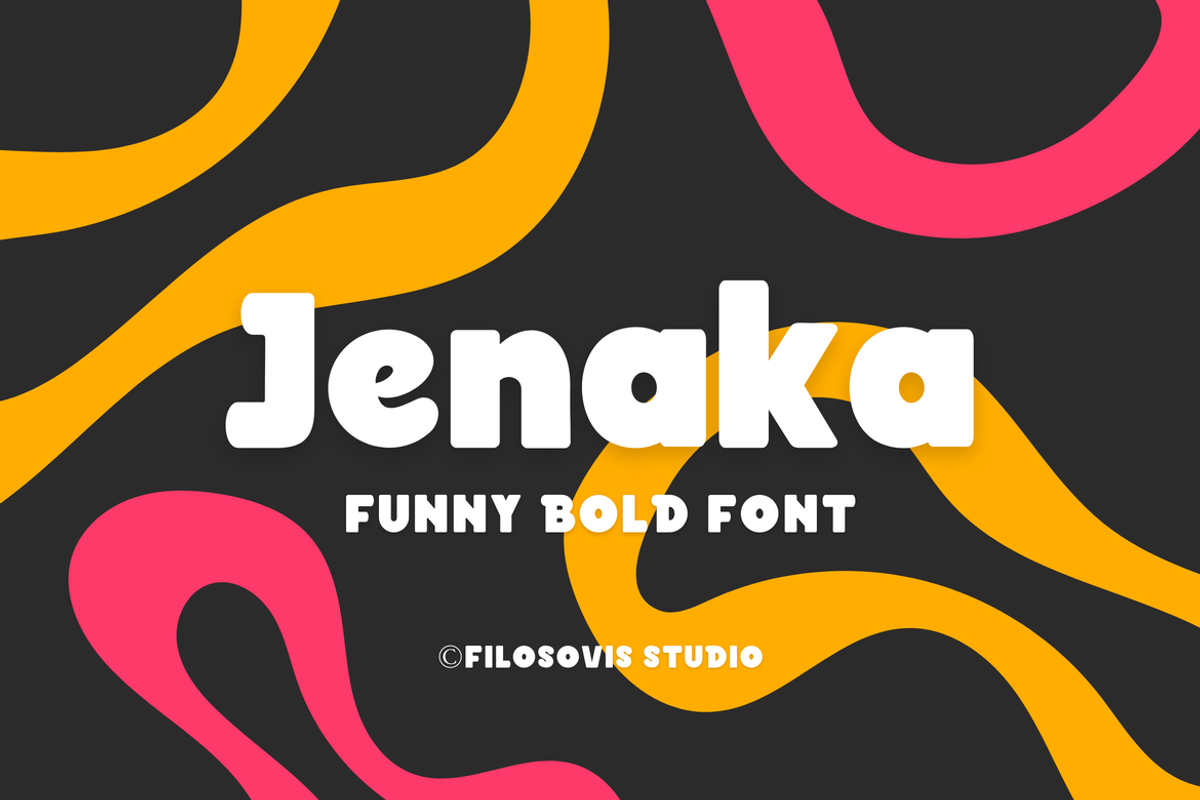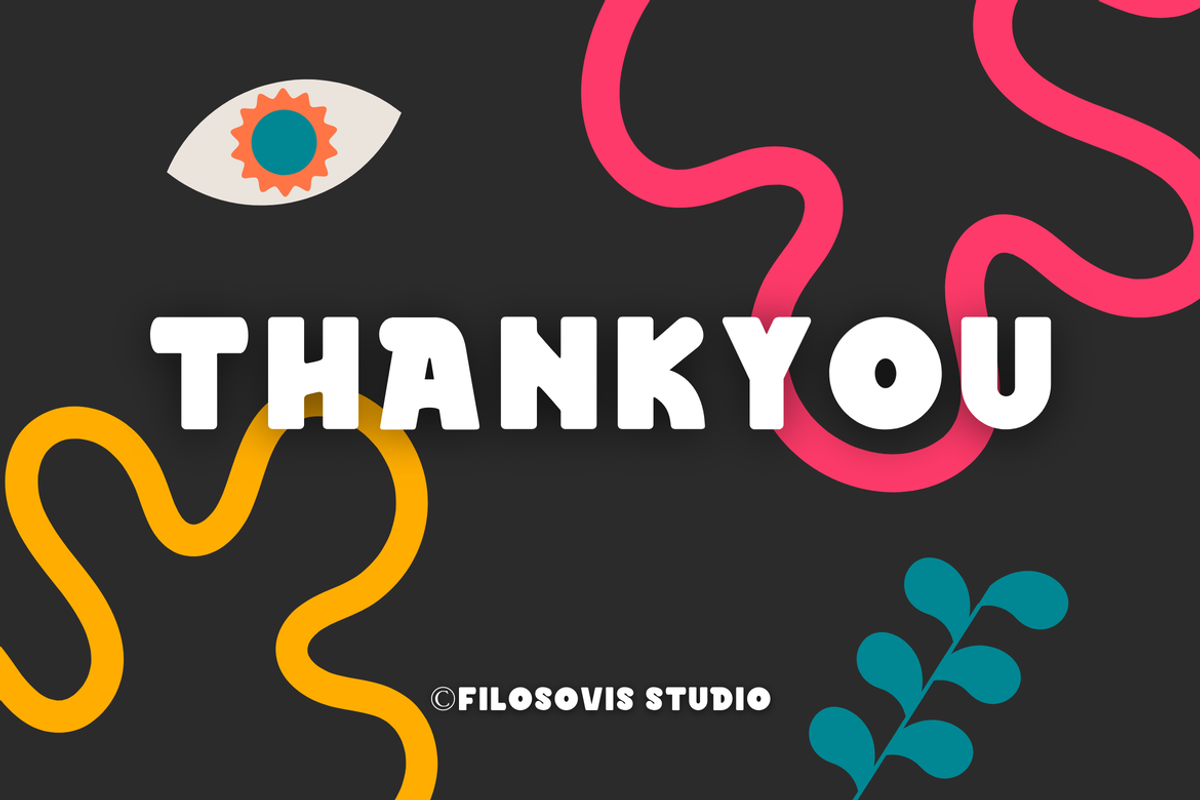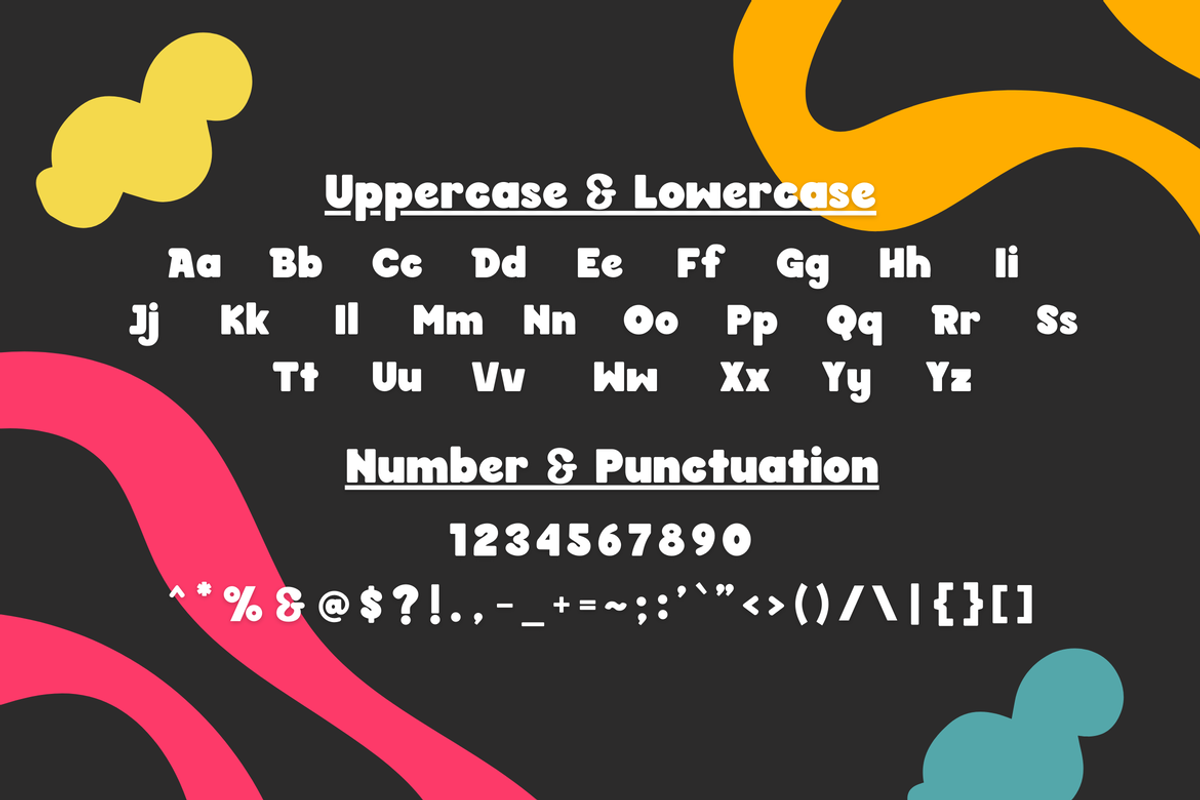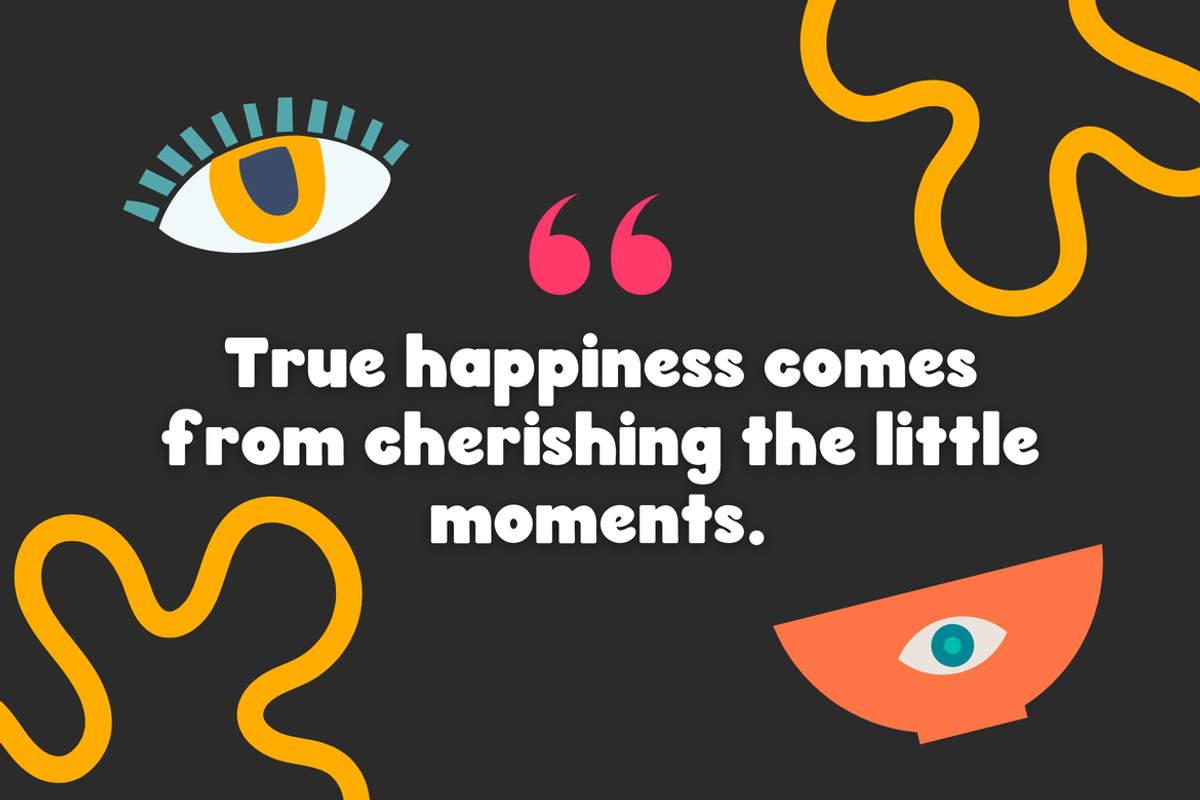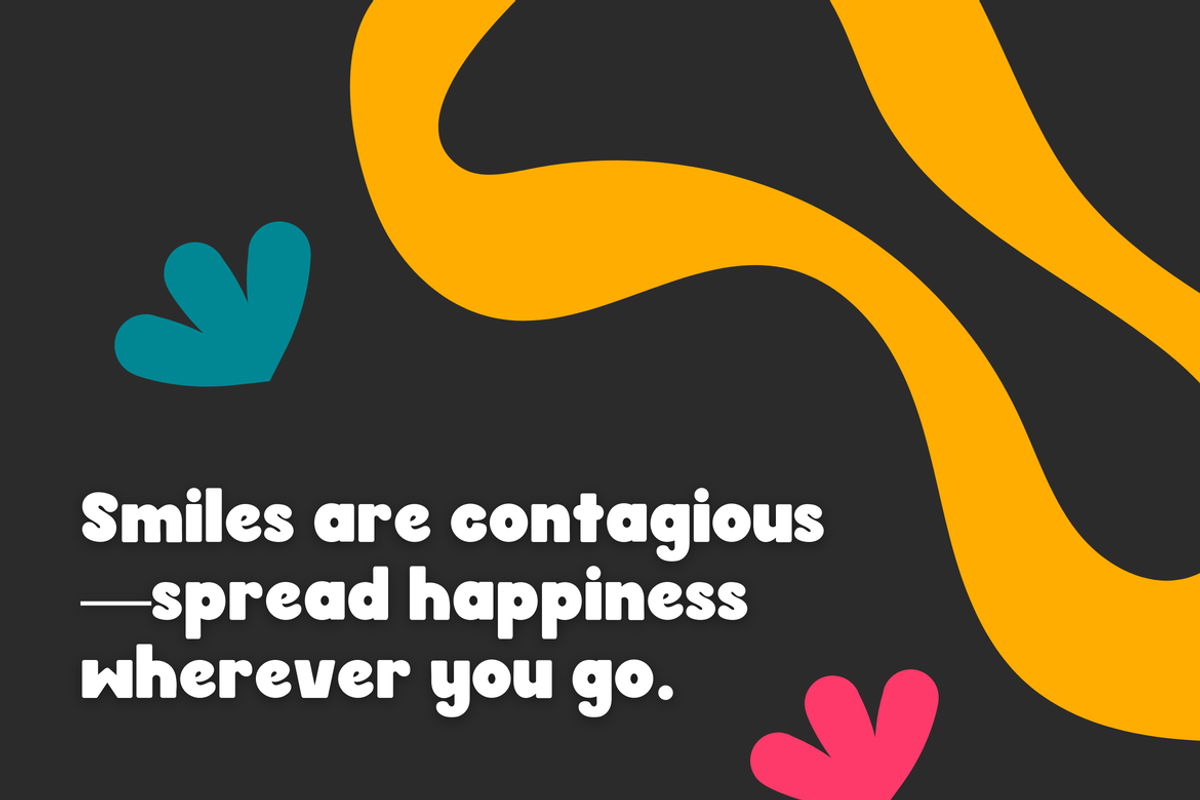
Jenaka | Bold Font
Jenaka is a typographic style characterized by its thick, heavy strokes, which make it stand out from regular typefaces. It can evoke a feeling of confidence and urgency, making it an effective choice for both print and digital media. Whether in marketing materials, presentations, or web design, bold font helps convey a message with impact, ensuring that essential details are noticed and remembered.